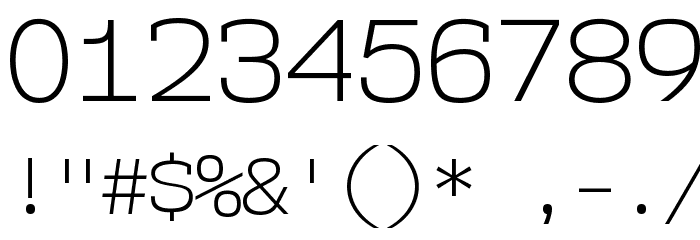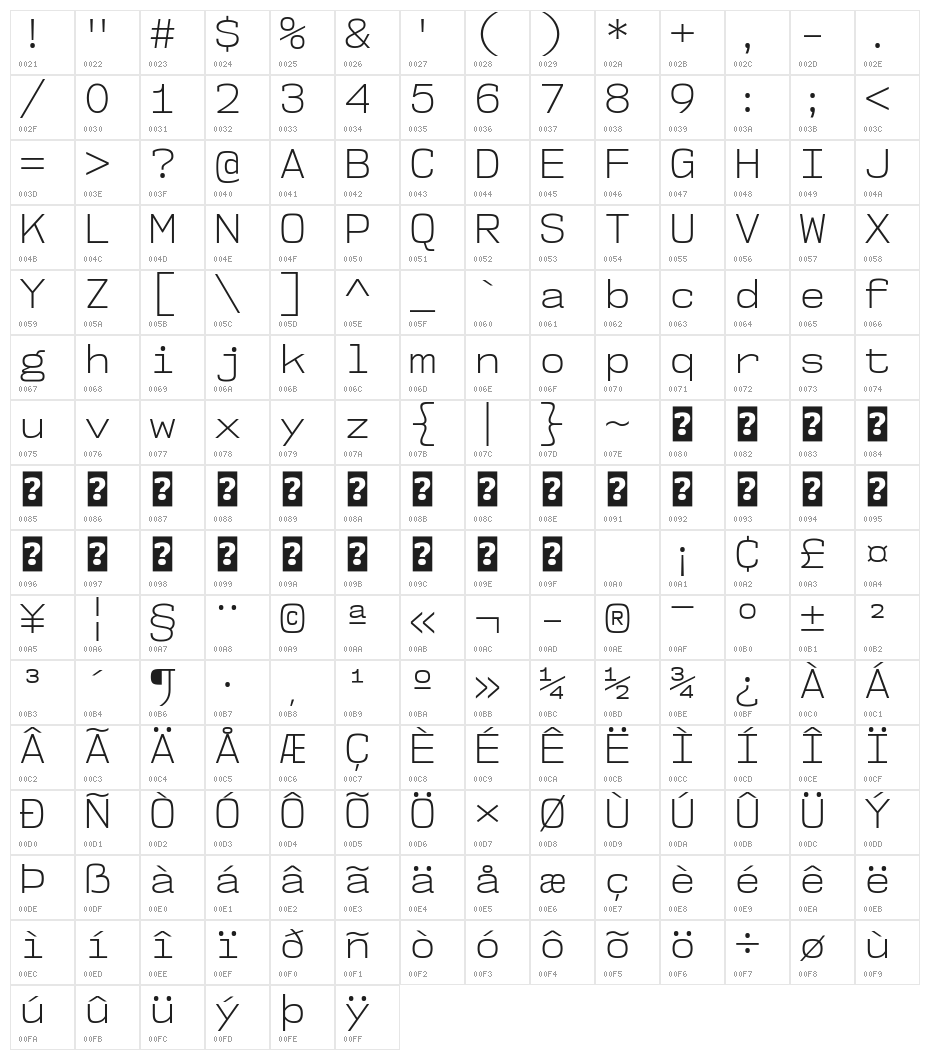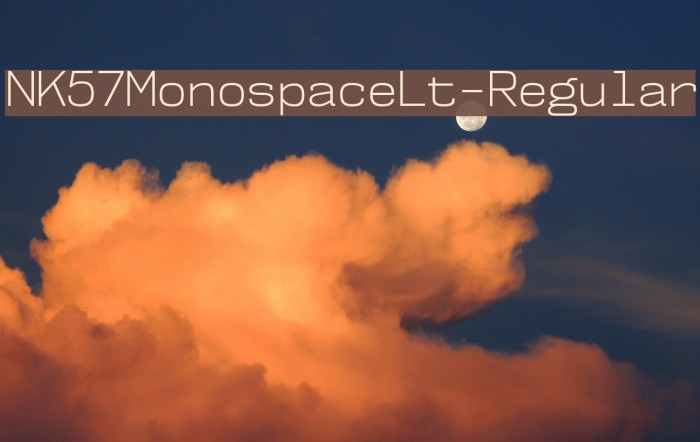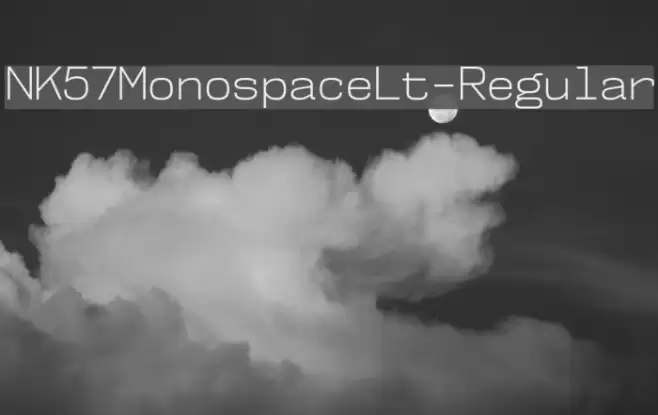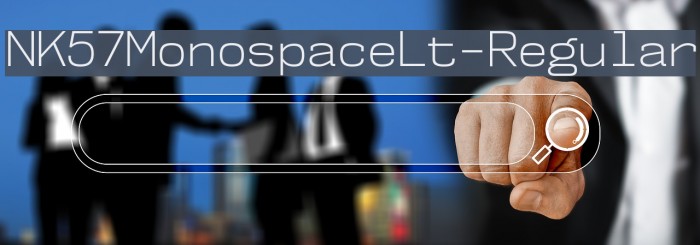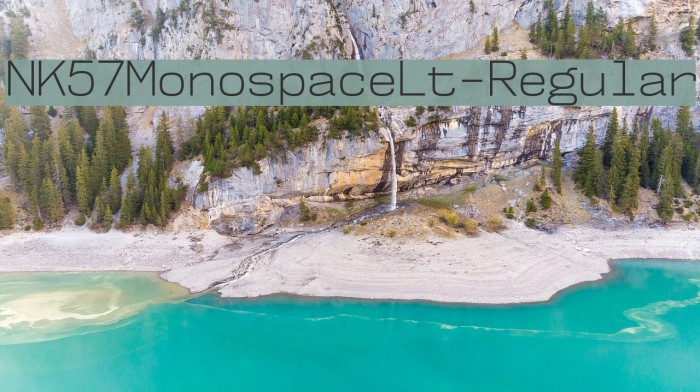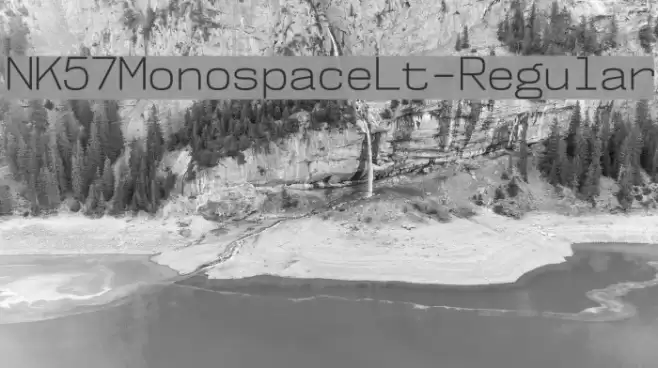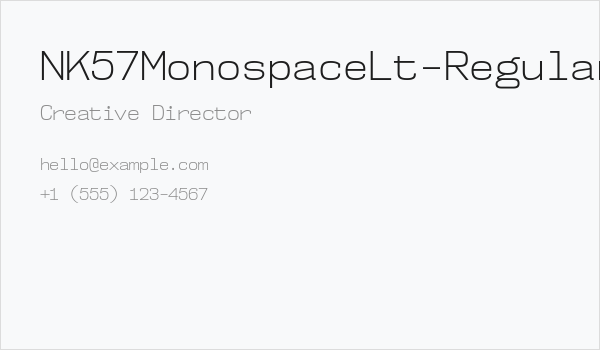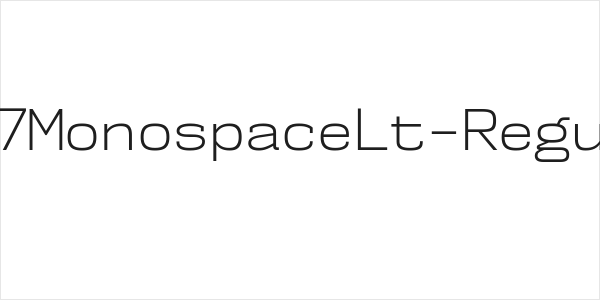
NK57MonospaceLt-Regular Font
NK57MonospaceLt-Regular Description
This typeface features a clean and precise design, characterized by its monospaced structure where each character occupies the same amount of horizontal space. The letters are crafted with a geometric approach, presenting a modern and technical appearance. The strokes are consistent in width, contributing to a uniform and balanced look. The font maintains a minimalist aesthetic, making it suitable for digital displays and coding environments. Its clarity and simplicity ensure readability, even at smaller sizes, while the uniform spacing enhances its functionality in structured layouts.
| Use Case | Digital displays, Coding, Technical documentation |
| Proposed Projects | Ideal for coding, technical documentation, digital interfaces, and any project requiring precise alignment. |